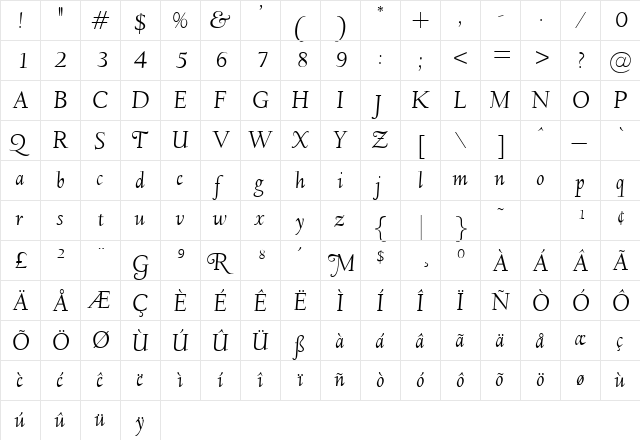
DeltaicItalic Regular
Design Context for DeltaicItalic Typeface
DeltaicItalic is a composed and adaptable typeface that performs quietly and consistently across a wide range of design contexts. The slanted form adds forward momentum and visual energy.
Pro Tip: Try DeltaicItalic for annotation and caption copy alongside an upright companion — the contrast in angle creates a dynamic but ordered typographic system.